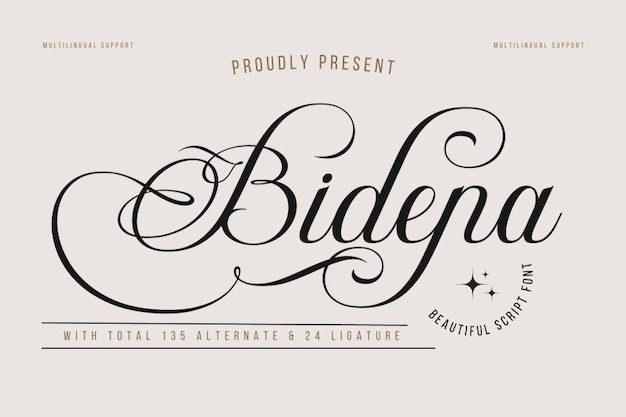
Bidena Font
"Bidena" is an elegant calligraphy font that showcases the beauty of handwritten lettering. Each letter flows gracefully, adorned with intricate loops and swirls, exuding a sense of sophistication and artistry. Perfect for invitations, wedding stationery, or any design project that aims to convey a refined, timeless aesthetic, this font adds a touch of charm and personal flair to any creative endeavor.